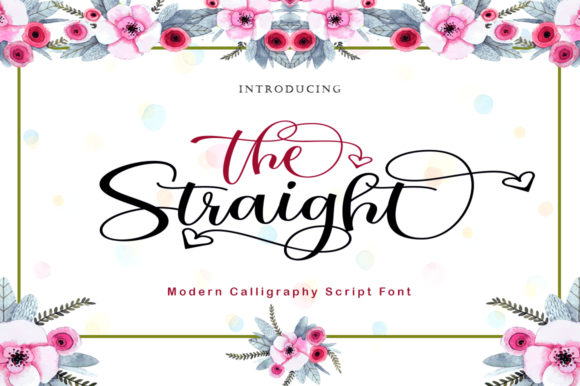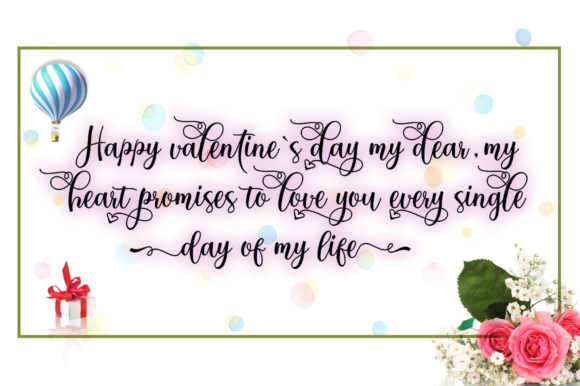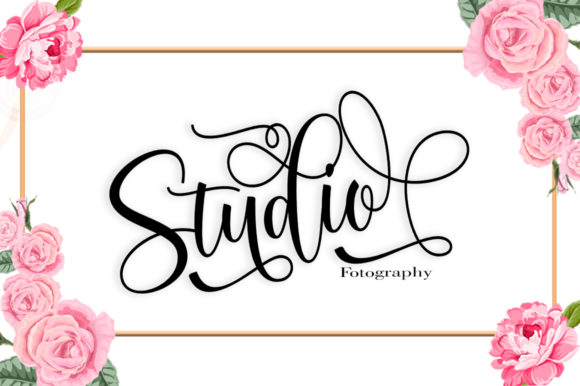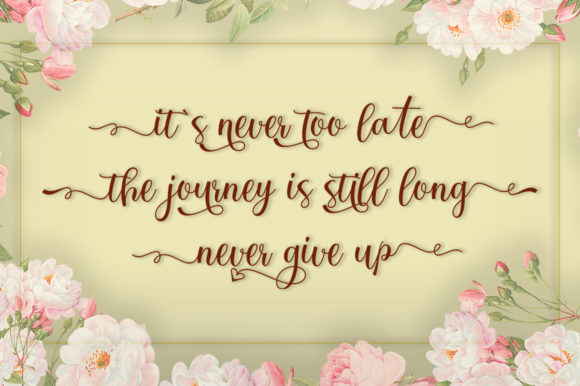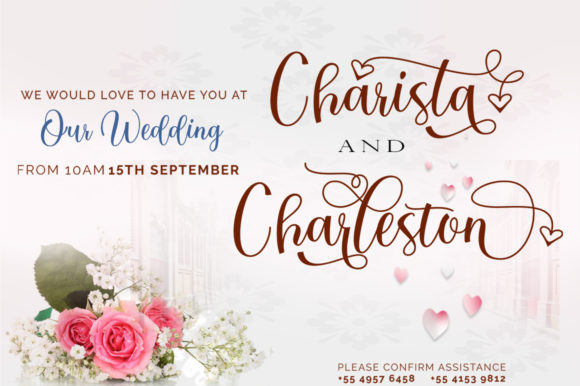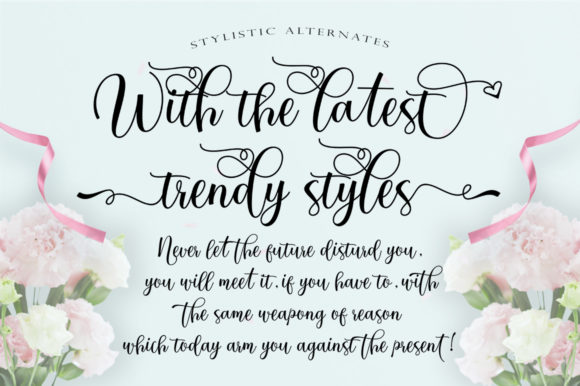
The Straight Font
About The Straight Font
The Straight is a beautiful handwritten font. It features a varying baseline, smooth lines, gorgeous glyphs and stunning alternates. This font is PUA encoded which means you can access all of the amazing glyphs and swashes with ease! It also features a wealth of special features including alternate glyphs and ligatures.